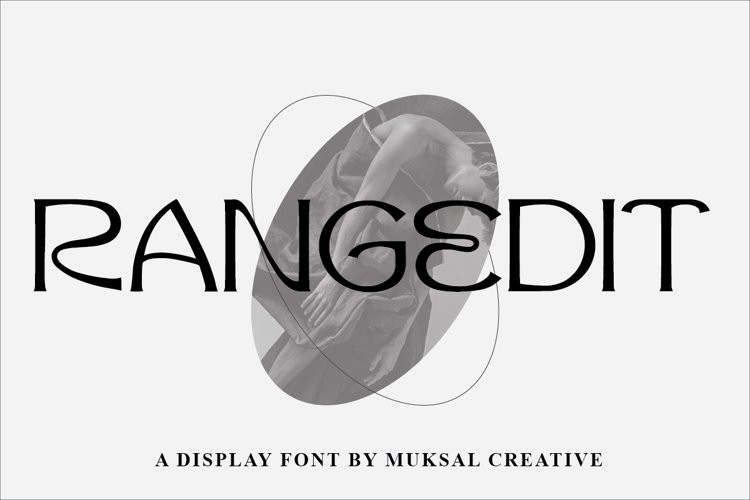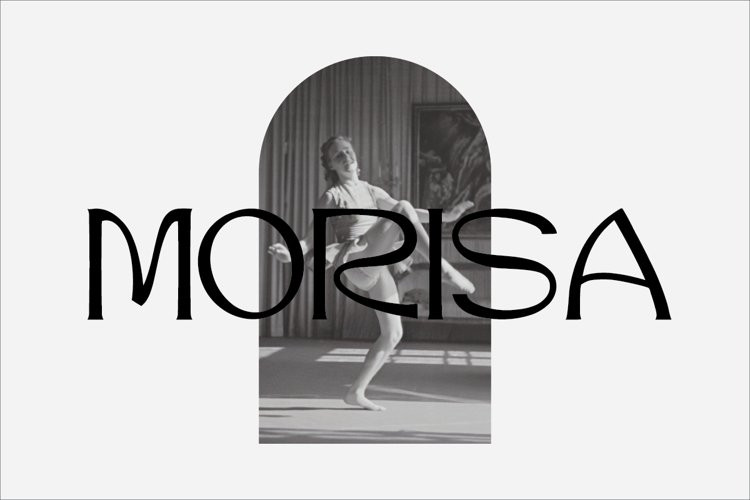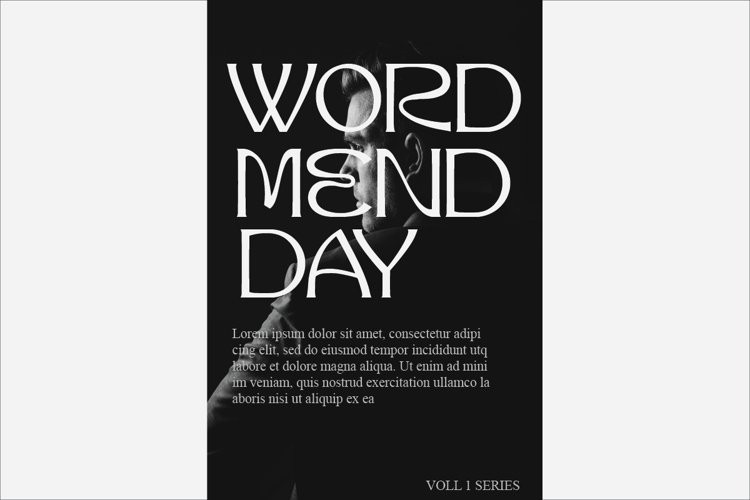
Rangedit Font
Rangedit FontRangedit is a Display font created especially for projects that need vintage and Retro typography! Use it for projects like magazines, banners, stationery, branding, name tags, invitations, and more. This font is PUA encoded, which means you can access all of the glyphs and swashes with ease!